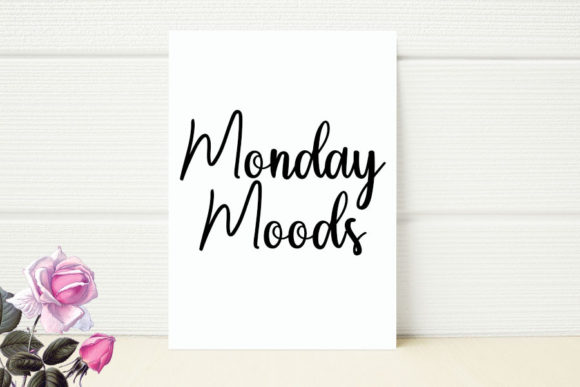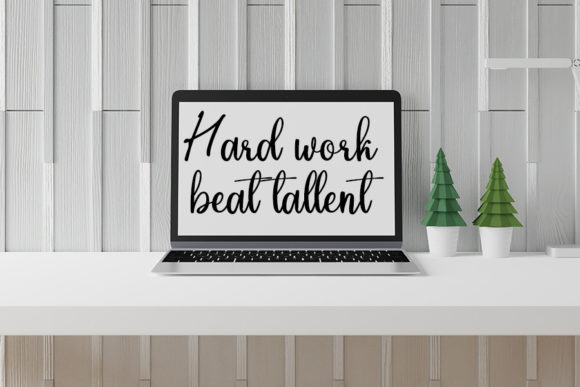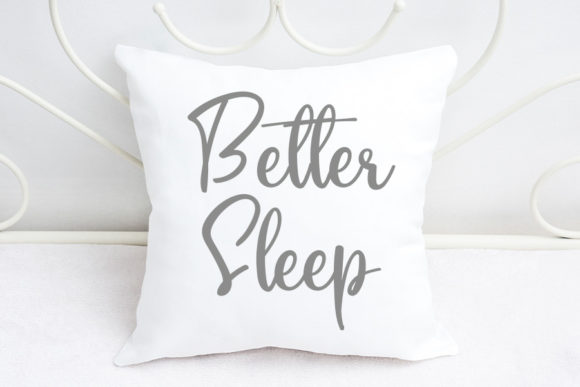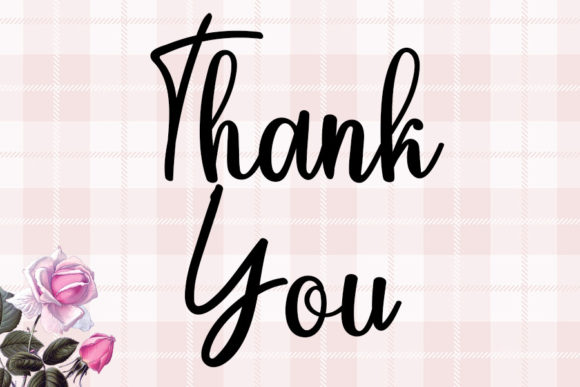
The Power of Creative Rose: A Timeless Handwritten Font
I’ll never forget the design project that led me to discover the Creative Rose font. I was working on a branding project for a client who wanted a logo that exuded elegance and sophistication. As I scrolled through font after font, nothing seemed quite right – until I stumbled upon Creative Rose. Its unique, handwritten charm instantly captured my attention, and I knew I had found the perfect fit.
An Honest Review of Creative Rose
So, what makes Creative Rose so special? Let’s dive into the good stuff and a few quirks I’ve discovered.
- ✨ Unique and beautiful touch: Every letter has its own character, making your design truly stand out.
- ✅ Timeless elegance: Creative Rose has a classic, sophisticated feel that’s perfect for high-end branding.
- ✅ Versatile: Use it for logos, quotes, or any other design project that needs a touch of personality.
While Creative Rose is an amazing font, there are a few things to keep in mind:
- ⚠️ Limited use in very formal or corporate settings: Creative Rose is best suited for creative, design-focused projects.
- 🤔 May require adjustment for longer texts: Its unique lettering style can be a bit tricky to read in large blocks of text.
- Experiment with OpenType features, like stylistic alternates, to add more personality to your text.
The Story Behind Creative Rose
While the true story behind Creative Rose remains a mystery, it’s easy to imagine a talented designer pouring their heart into creating this beautiful font. Perhaps they drew inspiration from vintage letters, flower arrangements, or simply the elegance of the human hand. Whatever the story, Creative Rose is a true gem.
Q: What makes Creative Rose so special?
A: Creative Rose stands out with its unique, handwritten charm and timeless elegance.
Q: Is Creative Rose difficult to read?
A: While Creative Rose has a unique style, it’s generally easy to read in short texts. However, it may be less suitable for longer blocks of text.